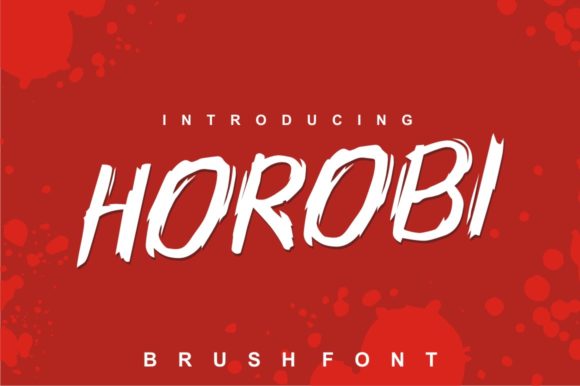
Horobi Font
Prepare to be mesmerized by Horobi, the display font that exudes a captivating blend of audacity and playful charm! Its rugged texture, reminiscent of raw artistic strokes, will ignite your imagination and leave an indelible mark on your designs.
Dive into the realm of Horobi and discover a font that defies convention, embracing the beauty of imperfection. Its bold strokes and playful curves dance across your screen, promising to transform your projects into visually stunning masterpieces.
Whether you seek to craft eye-catching logos that demand attention or add an edgy touch to your social media posts, Horobi rises to the occasion with unwavering style. Its versatility extends to branding, packaging, and even the creation of stunning posters that are sure to captivate your audience.
With Horobi at your fingertips, you embark on a journey of limitless creativity. Its distinct character will empower you to shatter the boundaries of ordinary design and embrace the extraordinary.